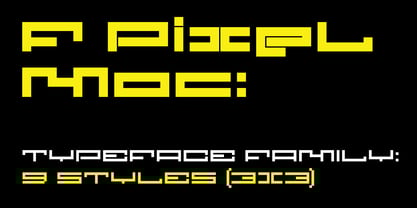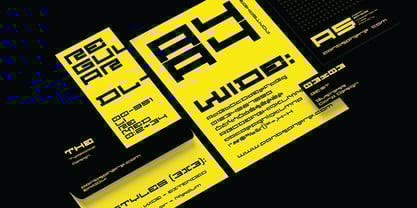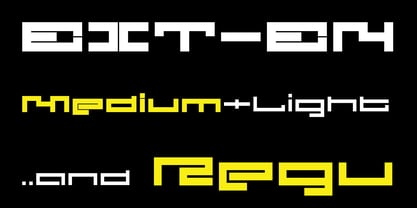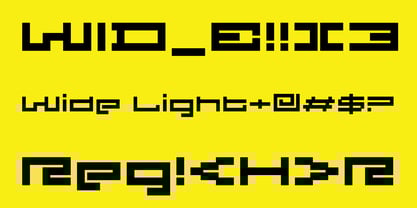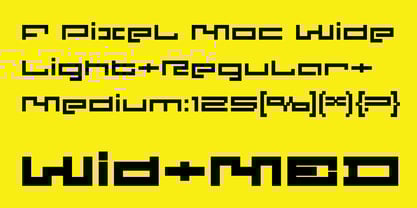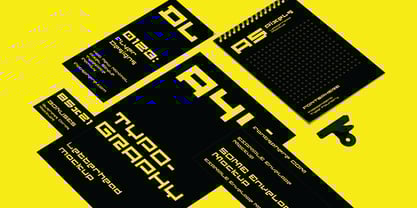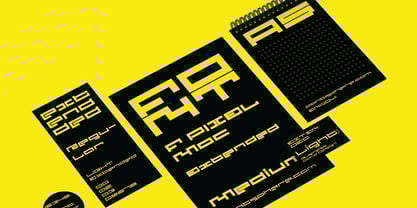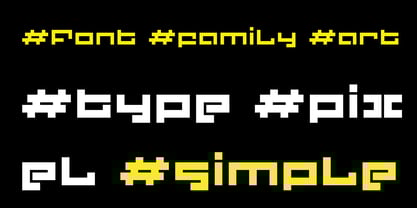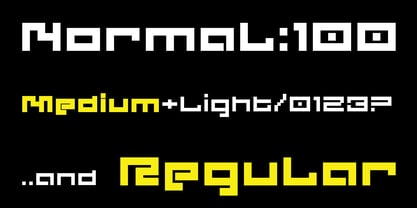
F Pixel Moc
by Fontsphere
The F Pixel Moc Font Family was designed by Bartosz Panek and published by Fontsphere. F Pixel Moc contains 9 styles and family package options. More about this family
F Pixel Moc – The Heavyweight Pixel Typeface System F Pixel Moc is an expansion of the F Pixel universe, created for designers who need a stronger, denser, and more expressive pixel rhythm. It takes the clean geometric structure of the original family and pushes it into a bolder, more distinctive digital voice. The family uses familiar weight names like Light, Regular and Medium, but each style has a noticeably more robust construction. It stays true to the pixel grid, just with a more confident presence. -- 9 Fonts for Strong Visual Statements F Pixel Moc includes 9 styles based on a simple and flexible structure: Widths: Normal, Wide, Extended Weights: Light, Regular, Medium This lets you control how compact or expansive your typography becomes. Each style keeps a clear pixel grid but behaves differently in layout, from tight headers to wide, assertive display blocks. -- Designed for Bold, Modern Digital Work F Pixel Moc works well in projects that need clarity, attitude and a distinct pixel-built aesthetic: Posters and covers Branding and identity Web and UI design Creative motion and digital graphics -- A Natural Evolution of F Pixel Like the original F Pixel, the Moc edition is built with precision, consistency and geometric simplicity. Here the proportions shift, the shapes gain weight and the overall visual impact increases. This type system is designed for projects where standard pixel weights simply aren’t enough. F Pixel Moc – for designers who want pixel geometry with extra presence.
Designers: Bartosz Panek
Current Foundry: Fontsphere